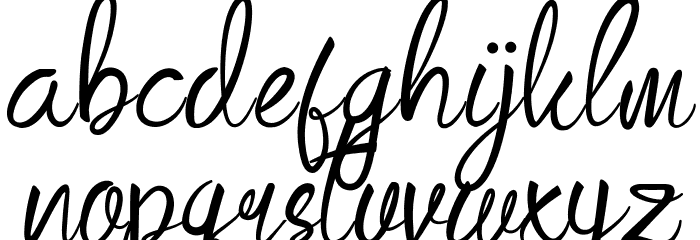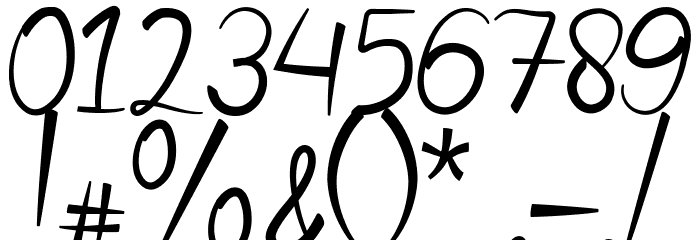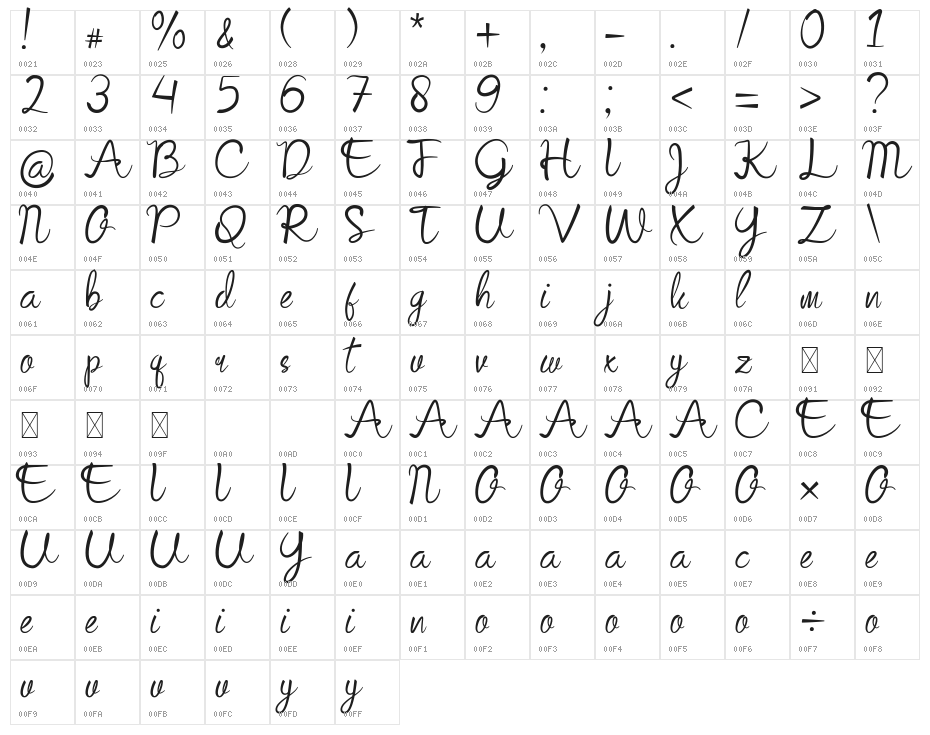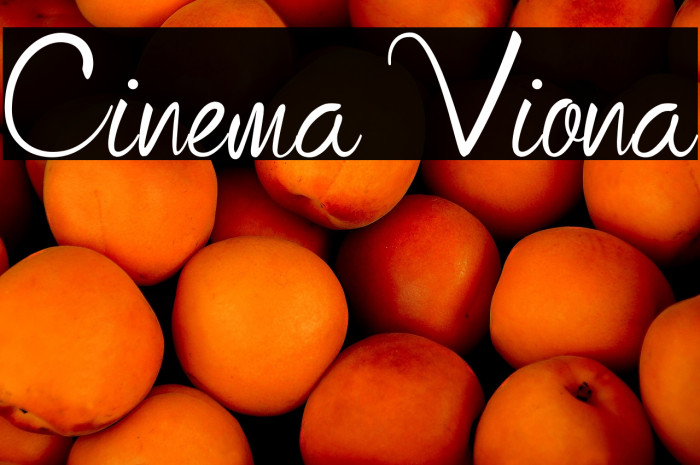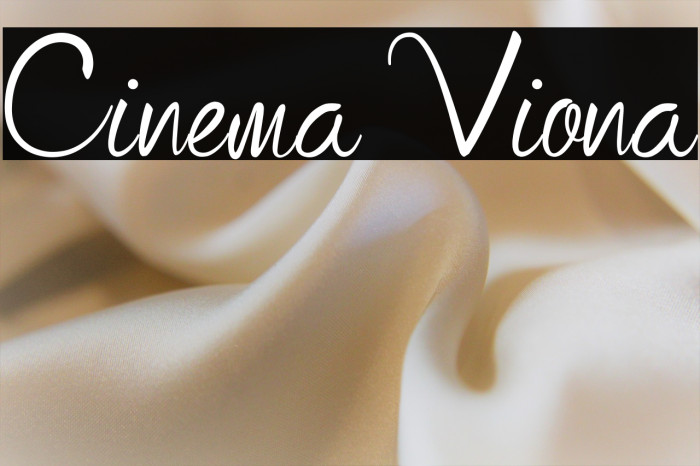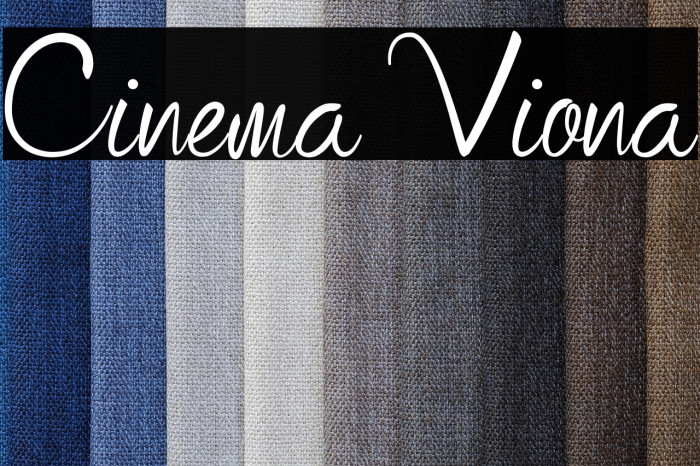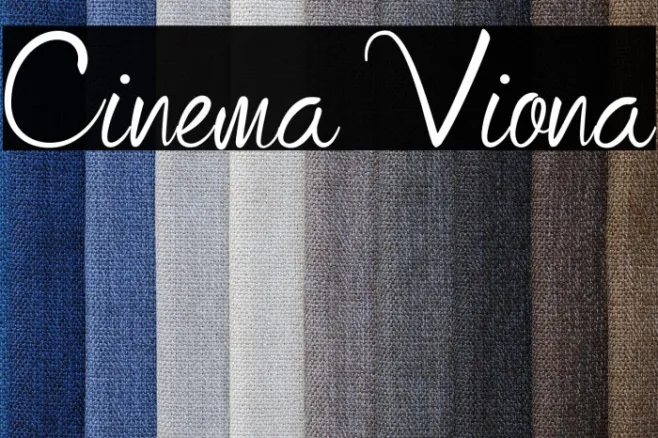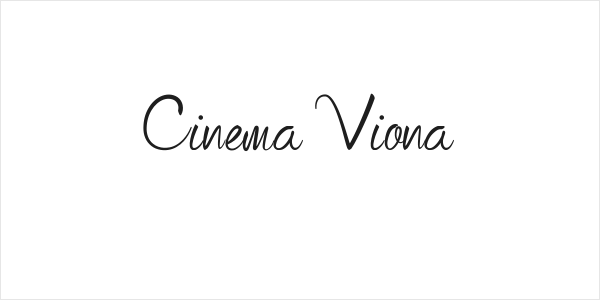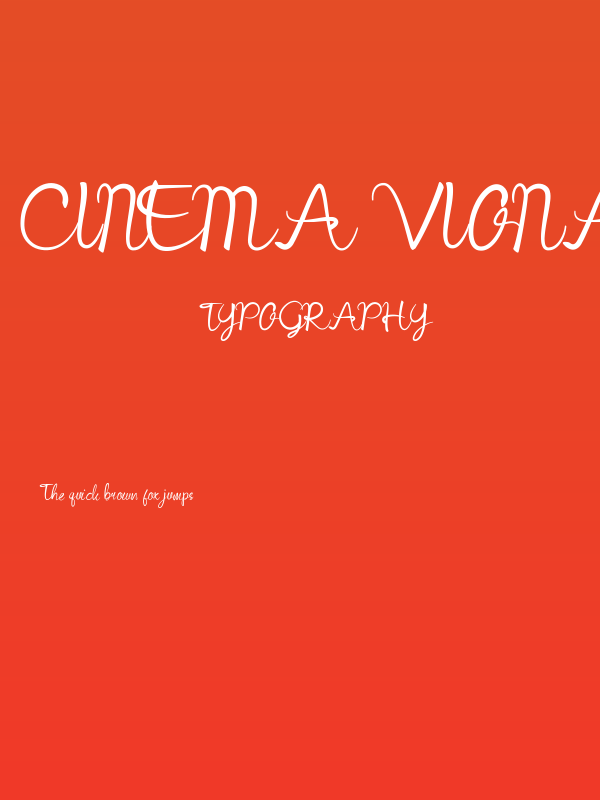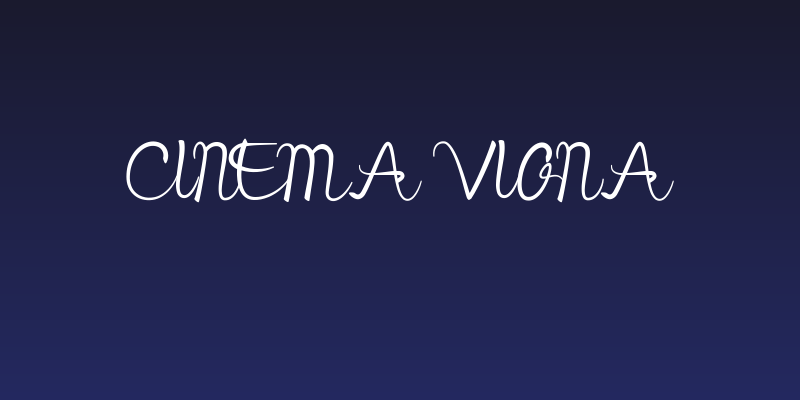
Cinema Viona Font
This font is a stylish and elegant script typeface that features fluid, connected strokes, giving it a handwritten appearance. The uppercase letters are gracefully looped and slightly slanted, while the lowercase letters maintain a consistent flow with smooth curves and a natural rhythm. The numerals are designed with a similar fluidity, ensuring a cohesive look across all characters. Special characters like the ampersand and percentage sign are uniquely crafted to match the overall aesthetic. This font exudes a sense of sophistication and charm, making it suitable for various creative applications.
A fluid and elegant script typeface with a handwritten appearance.
- Proposed Projects: Ideal for wedding invitations, greeting cards, branding, and elegant packaging designs.
- Overall Style: Elegant
- Use Case: Logos, Invitations, Branding